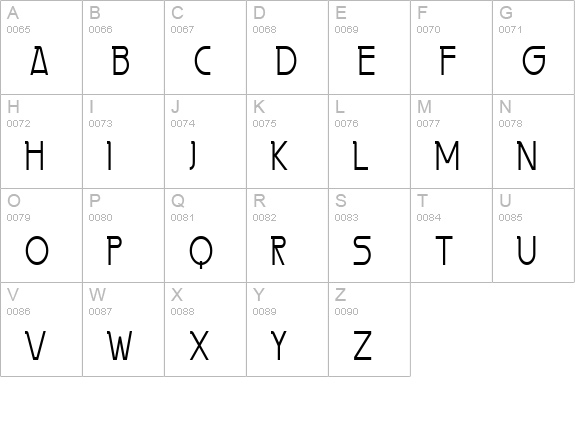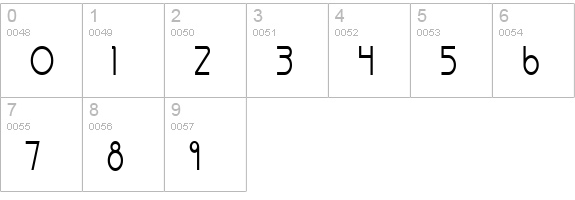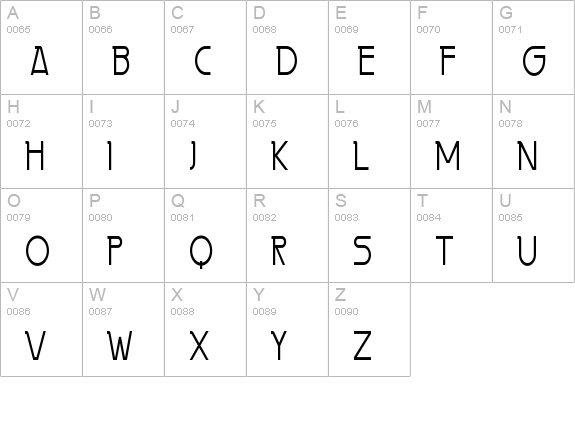
Persia Thin Normal is a delicate, low-contrast variant in the Persia typeface family \xE2\x80\x94 well suited to fashion editorial, minimal branding, and high-contrast display.
Introducing Persia Thin Normal font, a sleek and sophisticated typeface that exudes elegance and modernity. This font is perfect for adding a touch of sophistication to any design project, whether it be a logo, branding materials, or a website. With its thin and clean lines, Persia Thin Normal effortlessly captures attention and conveys a sense of professionalism. Its delicate letterforms and graceful curves create a harmonious balance that is pleasing to the eye. But what sets Persia Thin Normal apart is not just its impeccable design – it is also freely available to download at FontsMarket.com. Yes, you read that right. This stunning font can be yours without any cost, allowing you to elevate your designs without breaking the bank. Whether you are a graphic designer, a business owner, or simply an individual looking to add a touch of elegance to your personal projects, Persia Thin Normal font is the perfect choice. Its versatility and timeless appeal make it suitable for a wide range of applications, from print to digital. So why wait? Visit FontsMarket.com today and discover the beauty and sophistication of Persia Thin Normal font. Download it for free and let it transform your designs into works of art.